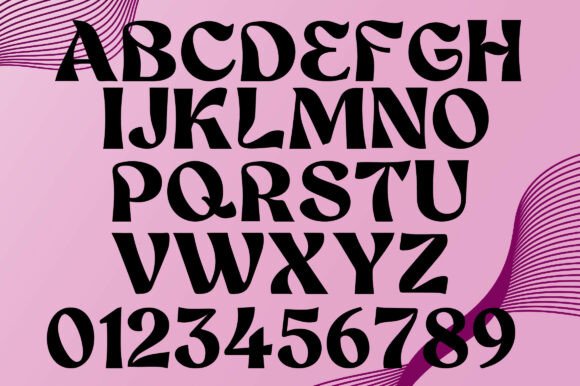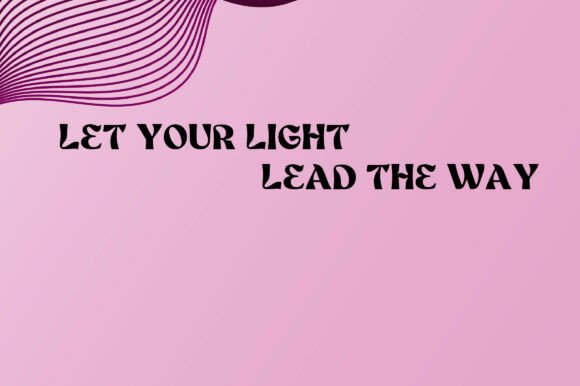
Introducing Amelia Font: Elevate Your Designs with Elegance and Charm
In the world of typography, fonts play a crucial role in conveying the tone and personality of a brand, product, or creative project. For designers and crafters seeking a stylish and versatile font, Amelia Font stands out as an exceptional choice. This decorative display font boasts elegant curves, bold strokes, and a soft vintage-inspired charm that instantly captivates audiences.
What Makes Amelia Font Special?
AMELIA is a stylish decorative display font that seamlessly blends artistic flair with readability. Its unique letterforms are carefully crafted to make a statement, making it perfect for a wide range of applications, including branding, posters, packaging, headlines, invitations, and other creative projects. Whether you’re looking to add a touch of sophistication or whimsy to your design, Amelia Font is an excellent choice.
Key Features of Amelia Font
- Elegant Curves and Bold Strokes: Amelia Font features smooth, flowing curves and bold strokes that give it a distinctive and eye-catching appearance.
- Soft Vintage-Inspired Charm: The font’s soft vintage-inspired charm adds a touch of warmth and character to any design.
- Unique Letterforms: Amelia Font’s letterforms are carefully crafted to blend artistic flair with readability, making it perfect for display text and headlines.
- Uppercase Letters and Numbers: This font includes uppercase letters A–Z and numbers 0–9, providing a comprehensive character set for a wide range of design applications.
Amelia Font is an excellent choice for designers and crafters looking to elevate their projects with a stylish and versatile font. Its unique blend of elegance and charm makes it perfect for:
- Branding: Create a lasting impression with Amelia Font’s distinctive and memorable letterforms.
- Posters: Add a touch of sophistication and whimsy to your posters with this eye-catching font.
- Packaging: Make your products stand out with Amelia Font’s bold and elegant appearance.
- Headlines: Create attention-grabbing headlines with Amelia Font’s bold strokes and elegant curves.
- Invitations: Add a touch of warmth and character to your invitations with this soft vintage-inspired font.
Tips for Using Amelia Font Effectively
To get the most out of Amelia Font, consider the following tips:
- Use it as a Display Font: Amelia Font is designed for display text and headlines, so use it to make a statement.
- Experiment with Colors: Try pairing Amelia Font with different colors to create a unique and eye-catching effect.
- Mix and Match: Combine Amelia Font with other fonts to create a distinctive and visually appealing typography.
Amelia Font is a stylish decorative display font that offers a unique blend of elegance, charm, and readability. Its elegant curves, bold strokes, and soft vintage-inspired charm make it perfect for a wide range of design applications. Whether you’re a designer or crafter, Amelia Font is an excellent choice for elevating your projects and making a lasting impression.